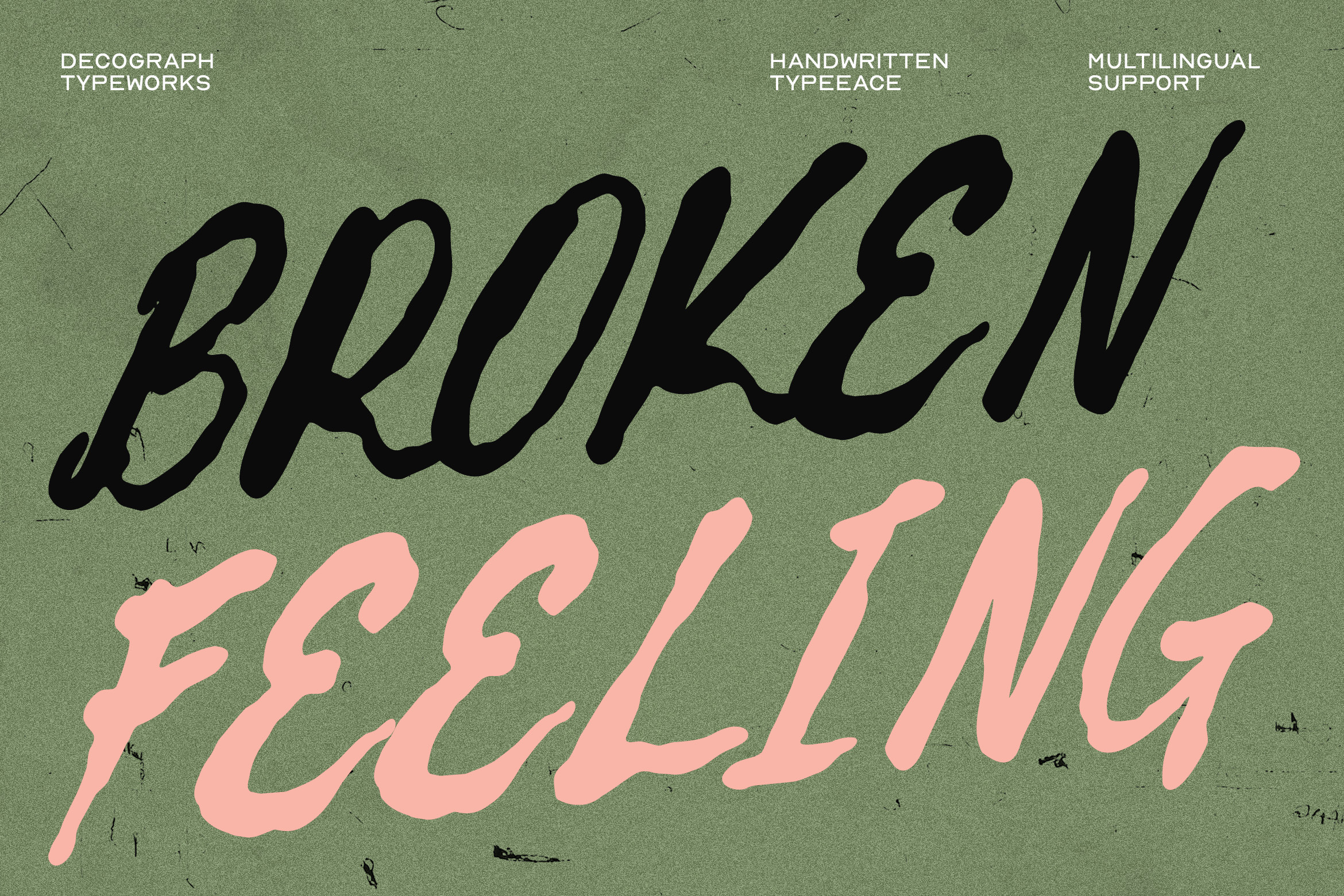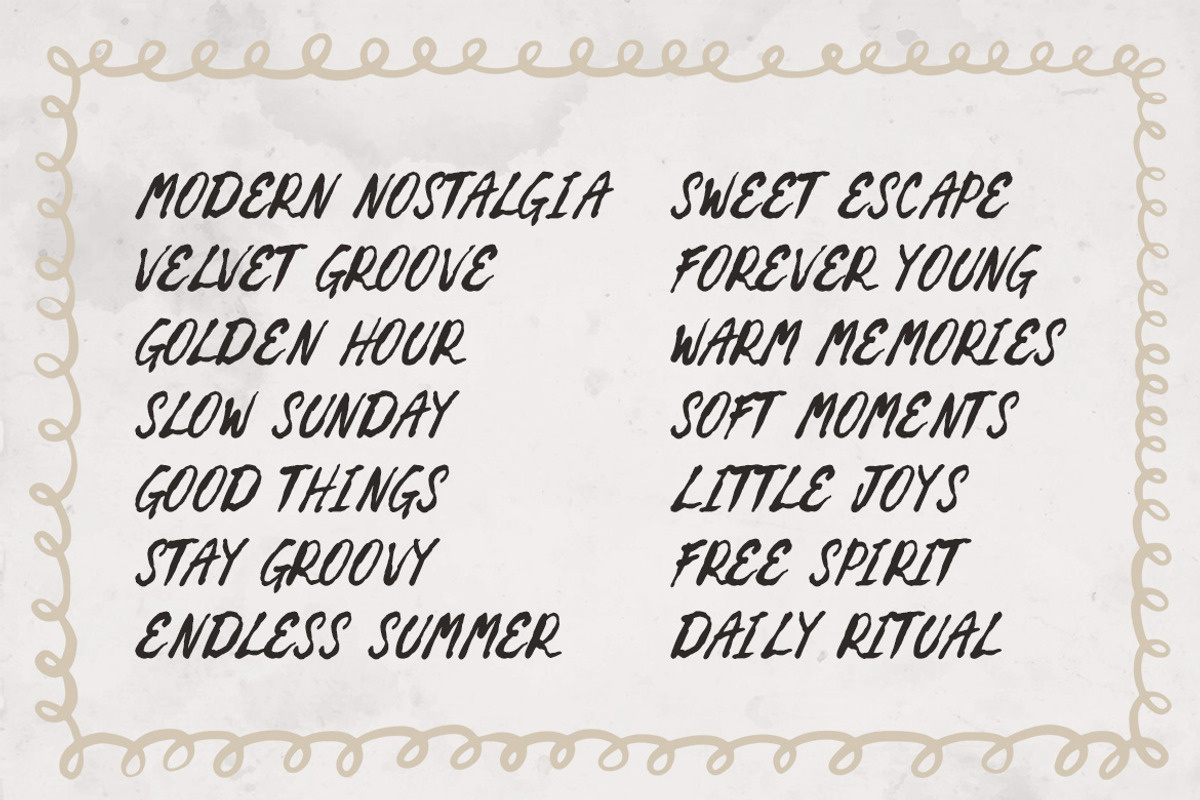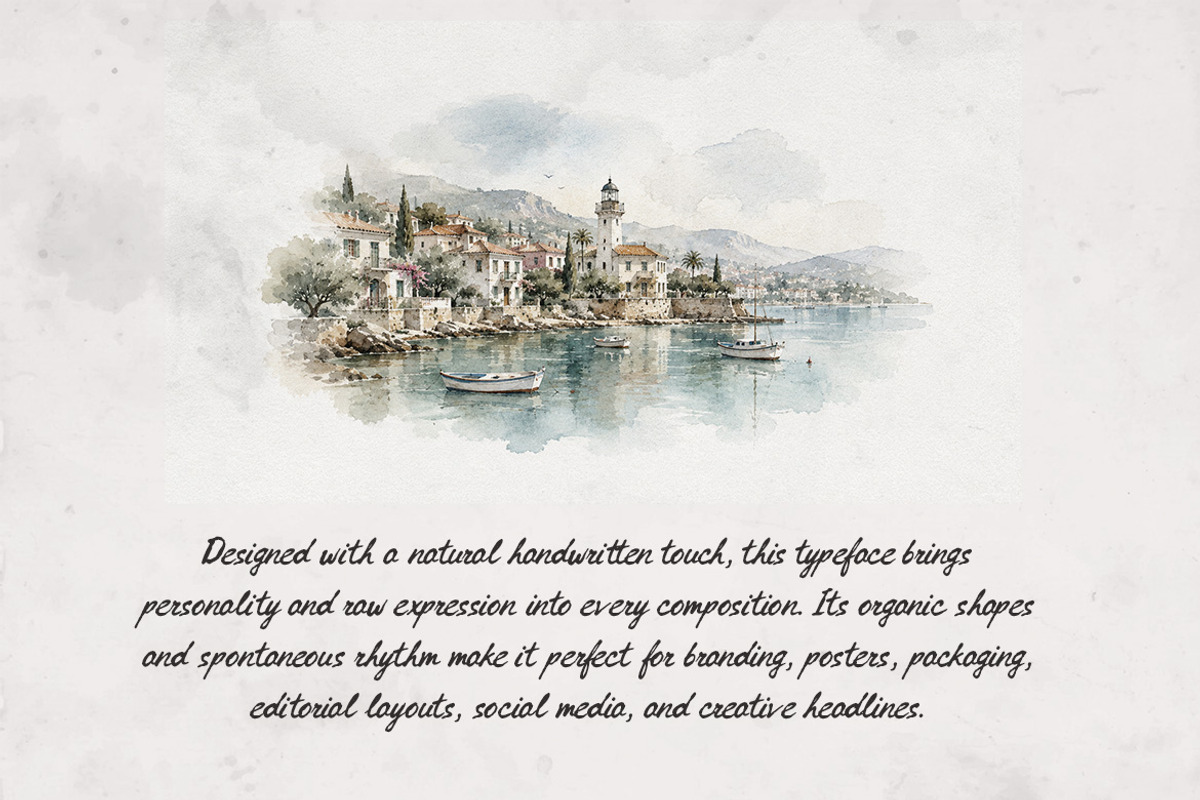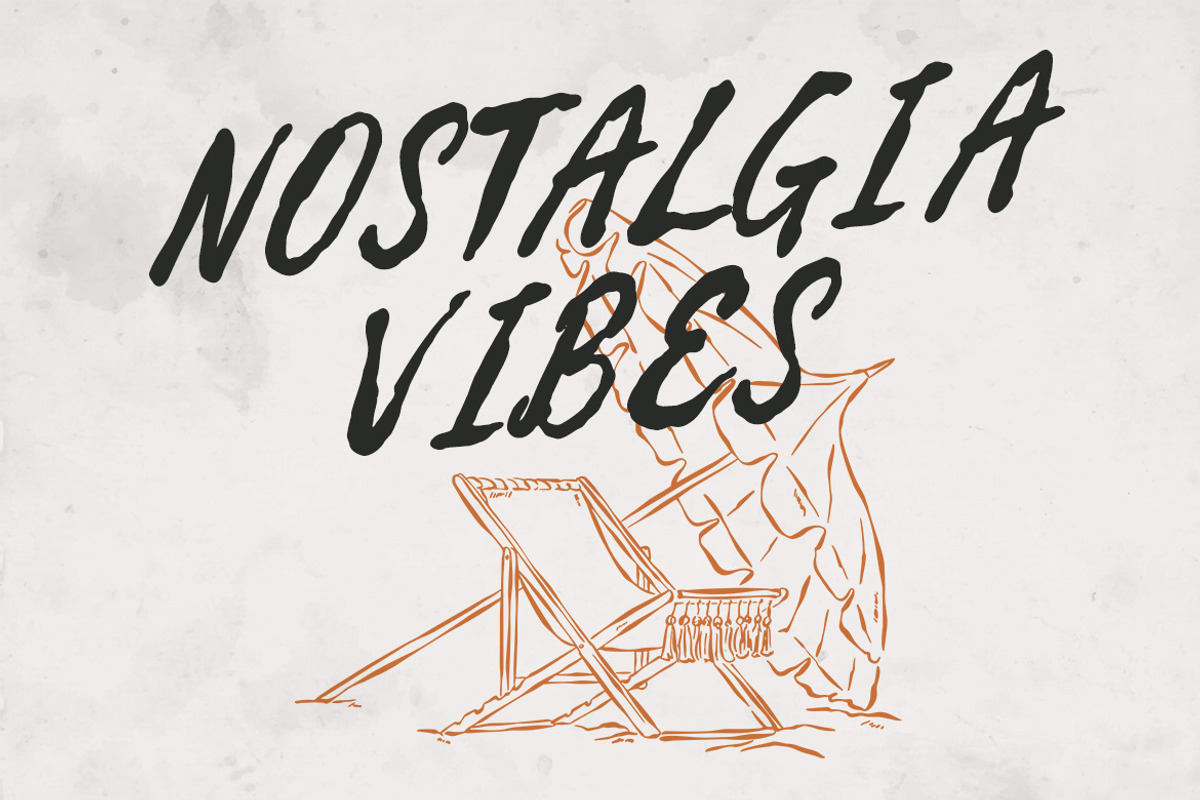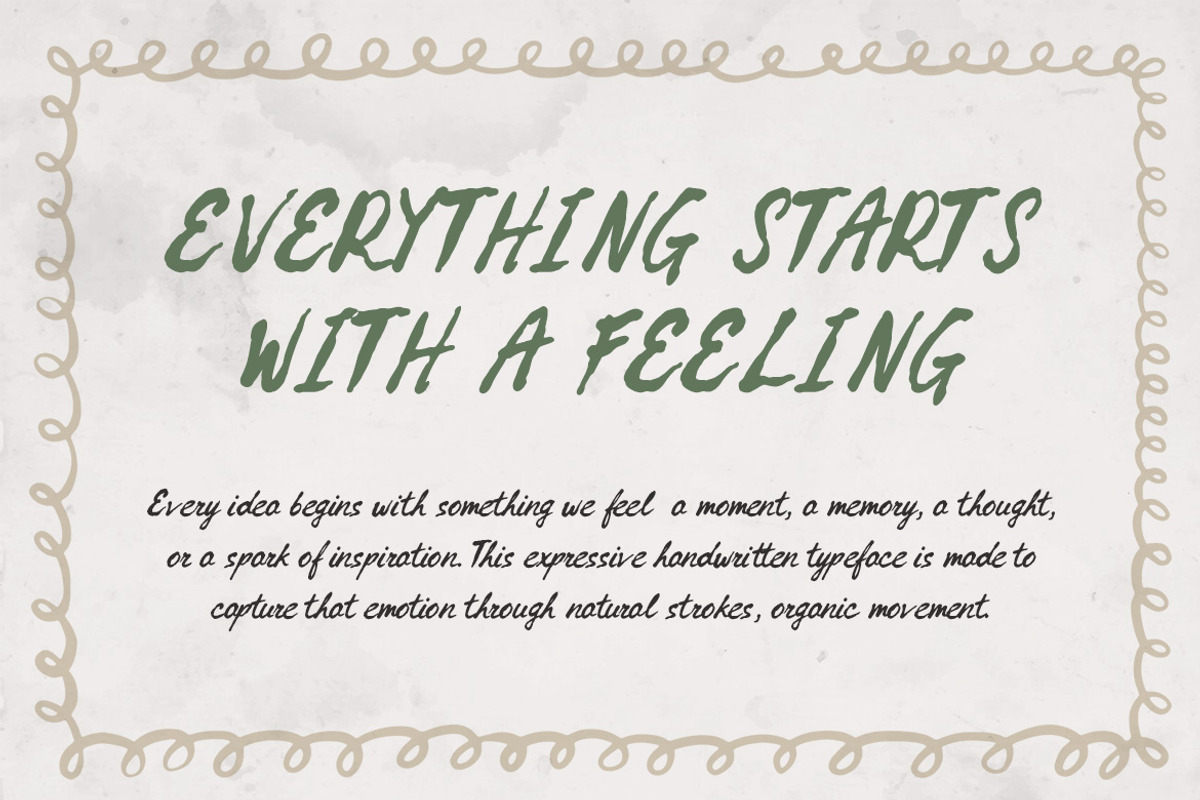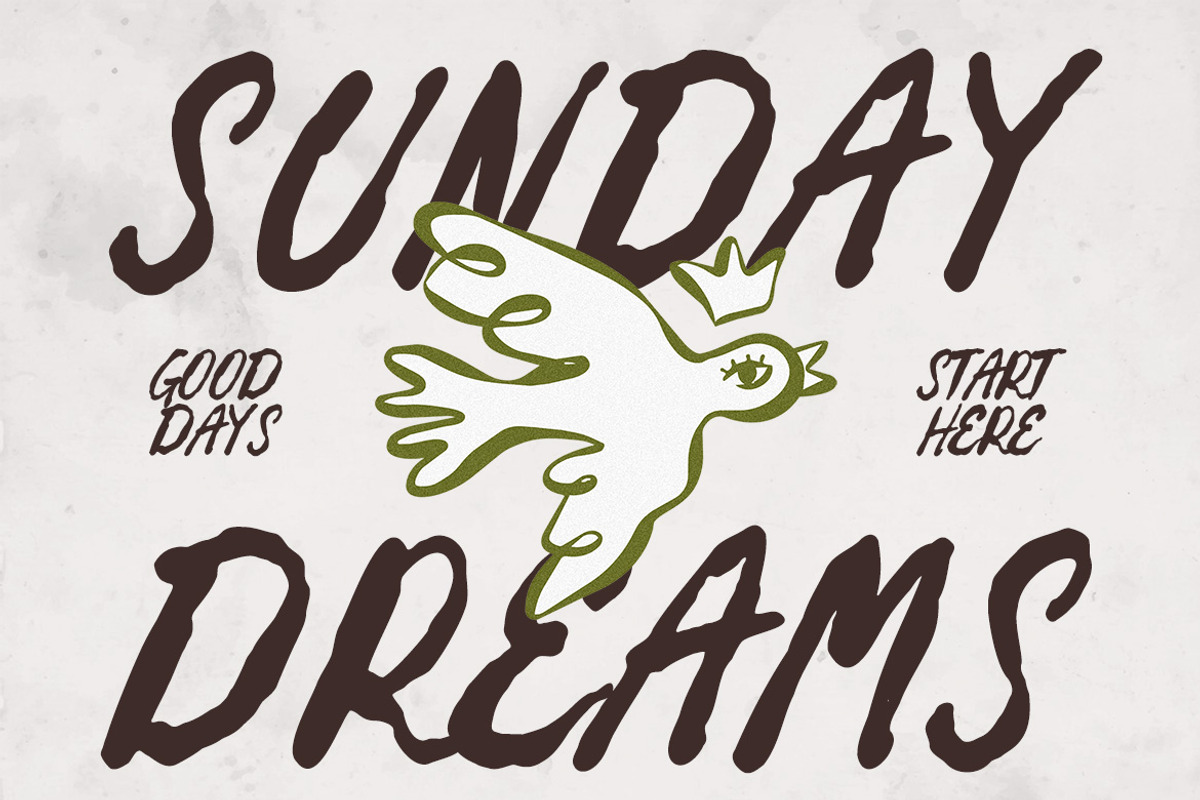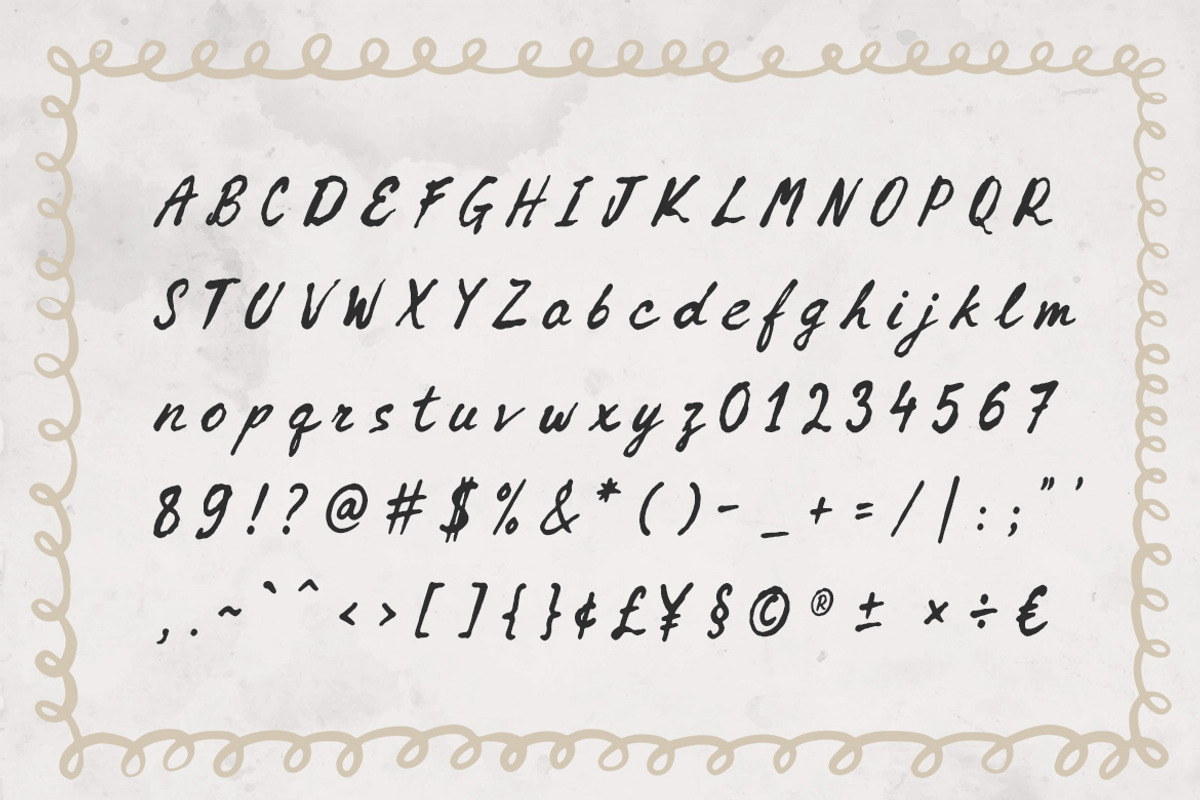
Broken Feeling – Handwritten Font
Broken Feeling is an expressive handwritten display typeface that combines bold gestural strokes with loose, irregular construction, featuring varied stroke widths, sweeping curves, and naturally shaped terminals that create an authentic hand-drawn presence. Its tall proportions and spontaneous letterforms give the typeface a strong visual rhythm while preserving the imperfections of handmade lettering. Designed for branding, posters, album covers, fashion graphics, packaging, editorial headlines, and merchandise, Broken Feeling brings a distinctive personality to contemporary layouts—delivering a visual tone that feels raw, artistic, energetic, and confidently expressive.
Lowercase
Smooth Kerning